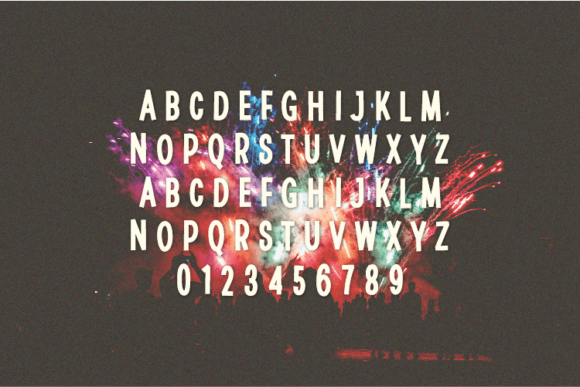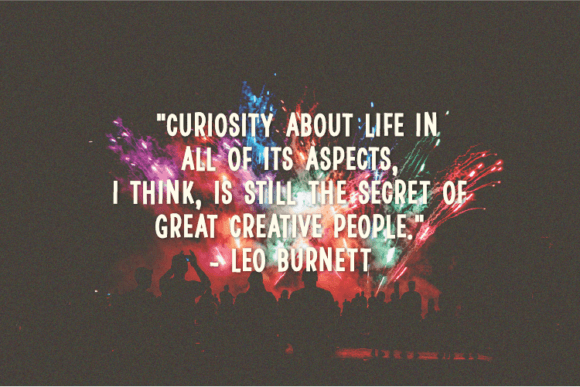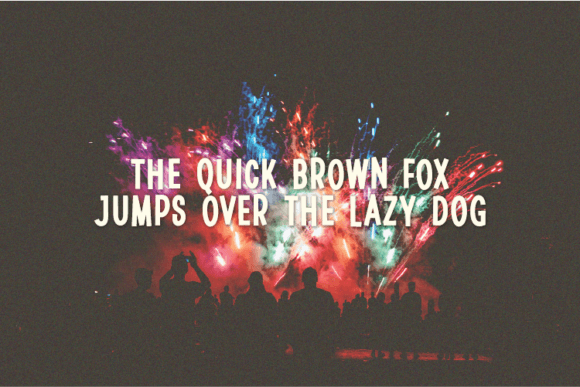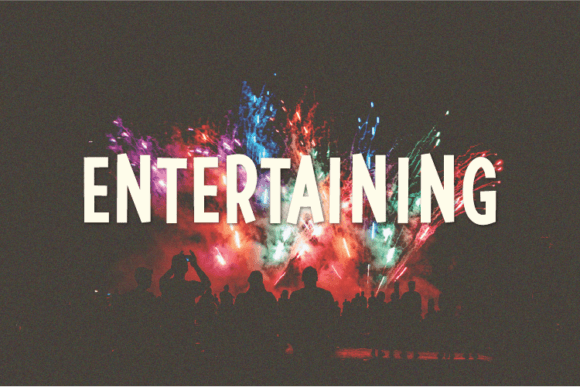
Discover the Entertaining Font: Elevate Your Creative Projects with a Unique Sans Serif Style
Are you tired of using the same old fonts for your creative projects? Look no further! The Entertaining font is here to shake things up and bring a fresh perspective to your designs. This interesting and unique sans serif font is perfect for adding a touch of personality to your quotes, notes, T-shirts, and many more. In this article, we’ll dive into the world of the Entertaining font and explore how it can make your creative projects stand out.
What is the Entertaining Font?
The Entertaining font is a sans serif font that boasts a clean and modern design. Its unique style is characterized by its rounded edges and subtle flair, making it perfect for designs that require a touch of whimsy. The font is highly versatile and can be used for a wide range of applications, from digital designs to print materials.
Key Features of the Entertaining Font
- Unique and Modern Design: The Entertaining font features a one-of-a-kind design that’s sure to grab attention. Its modern style makes it perfect for designs that require a fresh and contemporary look.
- Highly Versatile: This font can be used for a wide range of applications, including quotes, notes, T-shirts, posters, and more.
- Easy to Read: The Entertaining font is highly legible, making it perfect for designs that require a clear and concise message.
- Customizable: The font can be easily customized to fit your design needs, allowing you to adjust the size, color, and style to suit your project.
Why Designers and Crafters Love the Entertaining Font
Designers and crafters alike are drawn to the Entertaining font for its unique style and versatility. Here are just a few reasons why:
- Adds Personality to Designs: The Entertaining font adds a touch of personality to designs, making them more engaging and memorable.
- Perfect for Quotes and Notes: The font’s clean and modern design makes it perfect for quotes and notes that require a clear and concise message.
- Great for T-Shirts and Merchandise: The Entertaining font is a popular choice for T-shirts and merchandise, adding a touch of style and sophistication to any design.
How to Use the Entertaining Font in Your Creative Projects
Using the Entertaining font in your creative projects is easy! Here are a few tips to get you started:
- Pair it with Other Fonts: The Entertaining font pairs well with other fonts, making it perfect for designs that require a mix of styles.
- Experiment with Colors: The font looks great in a variety of colors, so don’t be afraid to experiment and find the perfect hue for your design.
- Use it for Headings and Titles: The Entertaining font is perfect for headings and titles, adding a touch of style and sophistication to any design.